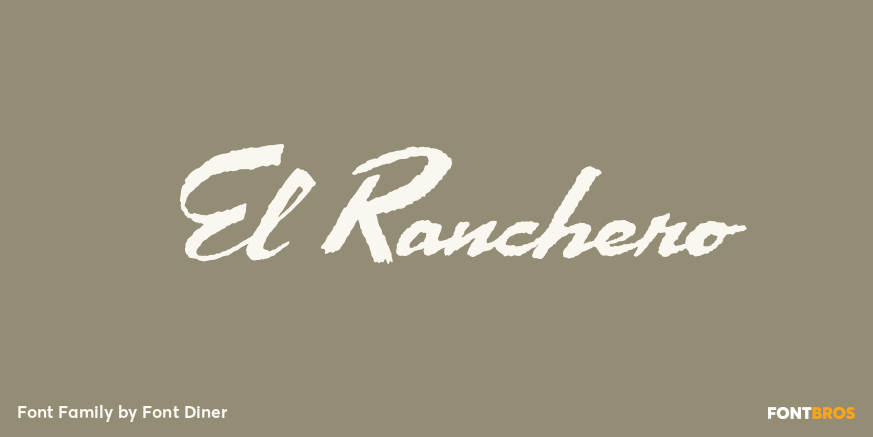
HomeFont BrosDistressedEl Ranchero DistressedScripts: Casual El Ranchero FacebookXPinterestWhatsApp 1 of 1 About El Ranchero Grab a plate of beans, a Tex-Mex spiced critter and a heap \’o vittles to go with this saucy Southwestern rough-riding script!  DOWNLOAD NOW People also explored Monthana Font Callipso Font Norman Stencil Mighty Girl Font Soulmate Font Absolute Font Green Tea Font Winter Together Font Helber Font 351 0 TagsEl Ranchero Font Previous articleFilmotype MinerNext articleCigar Label LEAVE A REPLY Cancel reply Comment: Please enter your comment! Name:* Please enter your name here Email:* You have entered an incorrect email address! Please enter your email address here Website: Save my name, email, and website in this browser for the next time I comment. Personal Use Free BD Nokio Personal Use Free Read more about this font Gaboed Personal Use Free Read more about this font Mahisya Personal Use Free Read more about this font Handayani Personal Use Free Read more about this font BLOG Fonts That Capture the Spirit of New York City New York City is more than just a place—it’s an experience, a rhythm, a visual language... 5 Fonts That Will Dominate Design Trends in 2026 Exploring Font Trends Where to Buy American Fonts Online in 2024